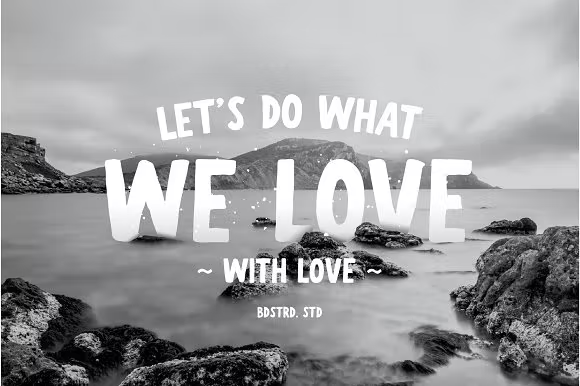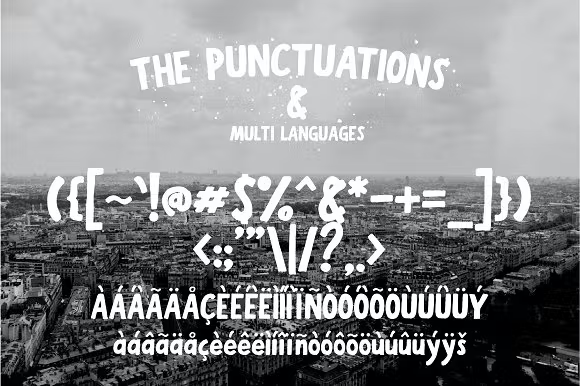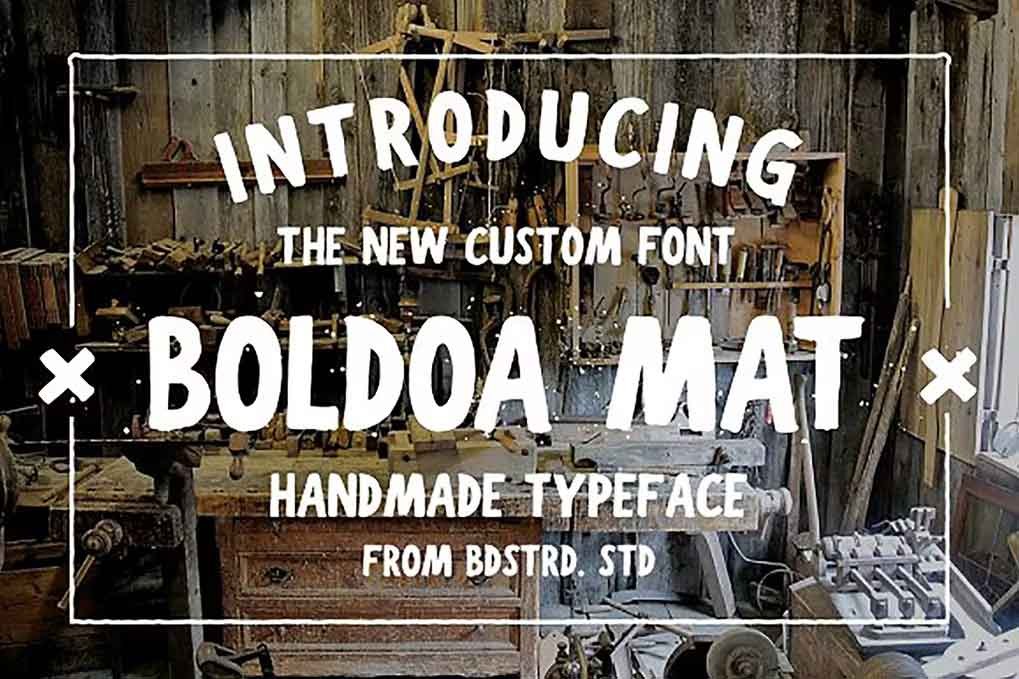
Boldoa Mat Font
Bodoa Mat inspired by an inscription on the window of a trader in one school. Is a seller “batagor”, which is a typical food of Indonesia. Boldoa Mat designed specifically for the needs of themed design vintage, classic, and other matters relating to the Handmade. Boldoa Mat is a rough handwriting. Enjoy.
Where Boldoa Mat Font works best
Boldoa Mat Font brings a personal, handwritten warmth to invitations, menus and place cards.
Craft brands — coffee, cosmetics, bakery — use scripts like Boldoa Mat Font for signature-style logos and labels.
Pair Boldoa Mat Font with a plain sans for quotes, stories and Pinterest pins that feel handmade.
What is Boldoa Mat Font good for?
Boldoa Mat Font is a Script And Handwritten typeface tagged Classic, Handwritten, Script, Script And Handwritten. It works well for headlines, logos, posters, social media graphics and branding projects that need a distinctive script and handwritten look.